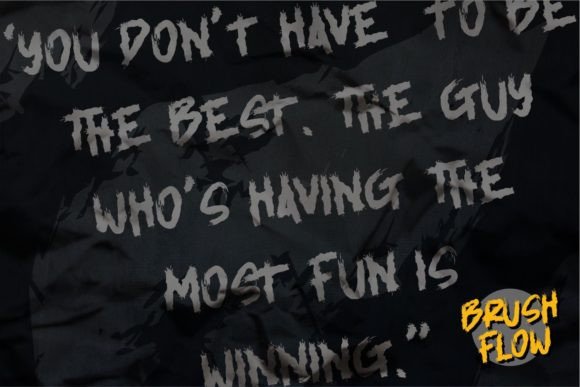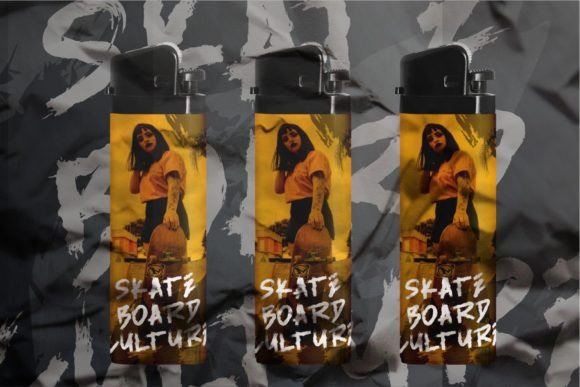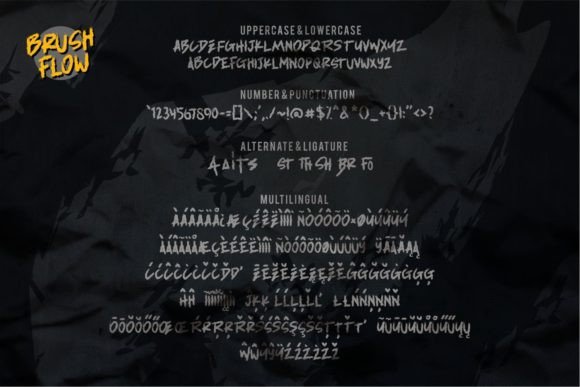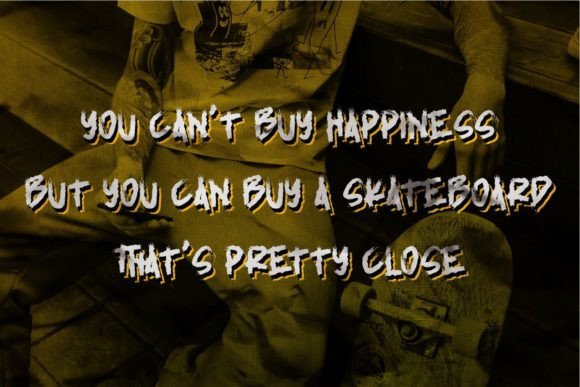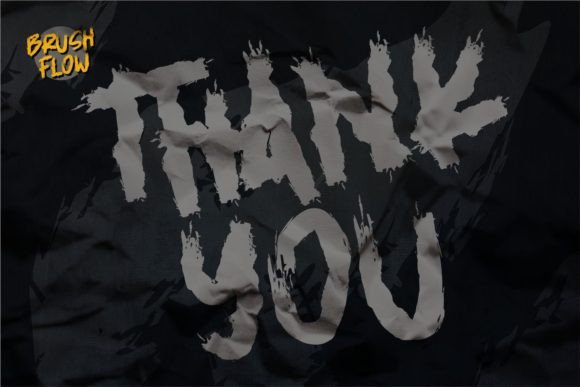
Introducing Brushflow Font: The Ultimate Display Font for Creative Projects
Are you tired of using the same old fonts for your creative projects? Do you want to add a touch of uniqueness and personality to your designs? Look no further than Brushflow Font, a cool and bold brush display font that’s sure to elevate your font library.
What is Brushflow Font?
Brushflow Font is a stunning display font that’s perfect for a wide range of creative projects, from branding and advertising to packaging and digital media. With its bold, brush-like strokes and smooth flow, this font is sure to grab attention and make your designs stand out.
Key Features of Brushflow Font
- Unique and Creative Design: Brushflow Font boasts a one-of-a-kind design that’s both cool and bold. Its brush-like strokes give it a distinctive look that’s sure to set your designs apart.
- Highly Versatile: Whether you’re working on a logo, brochure, or social media post, Brushflow Font is the perfect choice. Its versatility makes it suitable for a wide range of creative projects.
- Ease of Use: Brushflow Font is incredibly easy to use, even for those who are new to design. Its clean and simple structure makes it a breeze to integrate into your projects.
- Scalable: Brushflow Font is designed to be scalable, ensuring that it looks great in any size or resolution.
Why Choose Brushflow Font?
So, why should you choose Brushflow Font for your creative projects? Here are just a few reasons:
- Adds Personality to Your Designs: Brushflow Font is the perfect way to add a touch of personality to your designs. Its unique and creative design ensures that your projects will stand out from the crowd.
- Enhances Creativity: With Brushflow Font, you can unleash your creativity and experiment with new and exciting design ideas.
- Saves Time: Brushflow Font is designed to be easy to use, saving you time and effort on your creative projects.
Tips and Tricks for Using Brushflow Font
Here are a few tips and tricks to help you get the most out of Brushflow Font:
- Experiment with Colors: Brushflow Font looks great in a wide range of colors. Experiment with different hues and shades to find the perfect look for your design.
- Play with Size: Brushflow Font is designed to be scalable. Experiment with different sizes to add emphasis and create visual interest.
- Combine with Other Fonts: Brushflow Font pairs well with a wide range of fonts. Experiment with combining it with other fonts to create a unique look.
In conclusion, Brushflow Font is a cool and bold brush display font that’s perfect for creative projects. Its unique design, versatility, and ease of use make it a wonderful asset to your font library. Whether you’re a designer, crafter, or simply someone who loves to create, Brushflow Font is sure to enhance your designs and unleash your creativity.